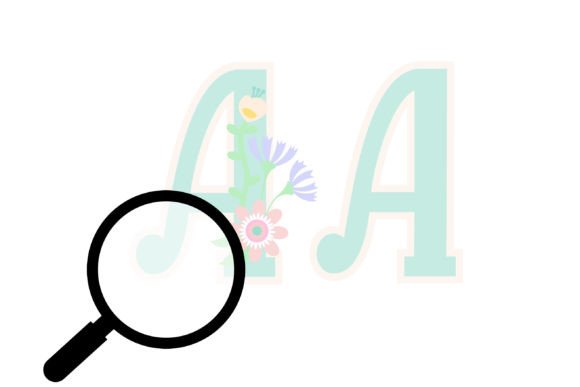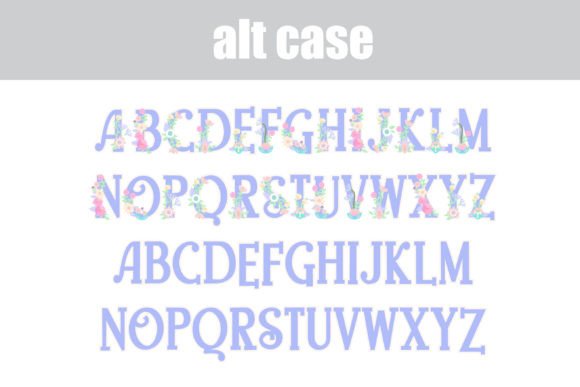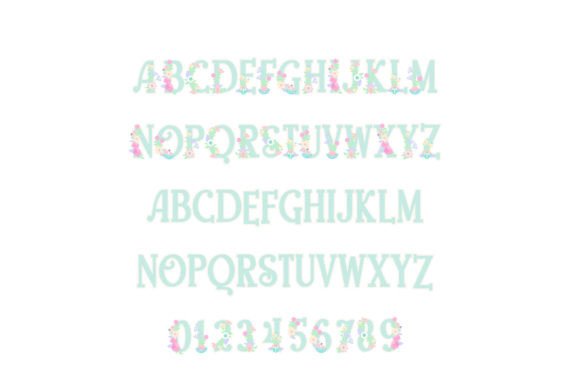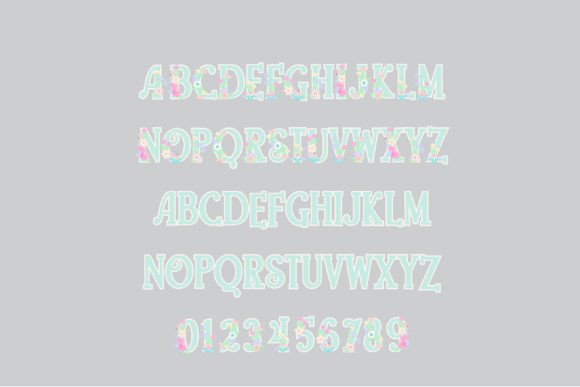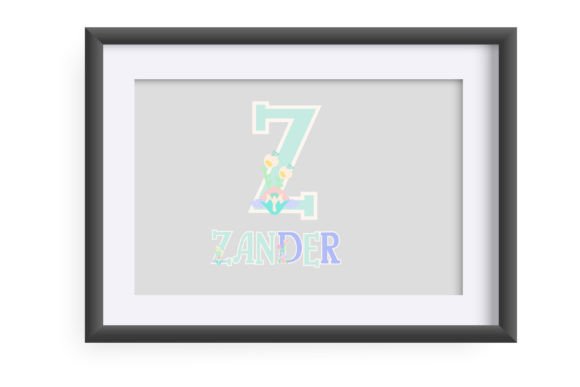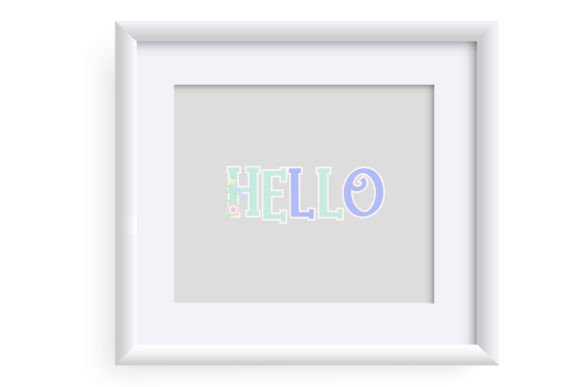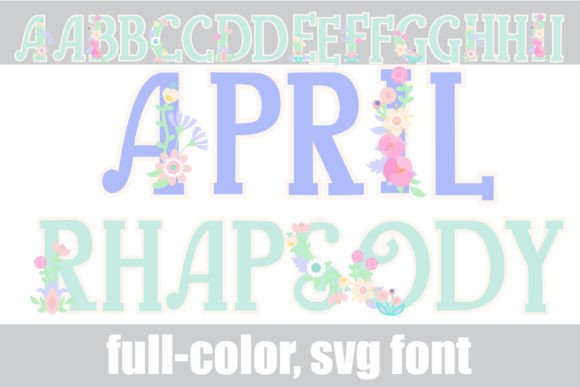
Introducing April Rhapsody Font: Elevate Your Designs with Vibrant Florals
Are you tired of using the same old fonts in your designs? Look no further than the April Rhapsody Font, a stunning full-color font that combines beautiful florals with a classic serif font. This unique font is perfect for designers and crafters looking to add a touch of personality to their work.
What is April Rhapsody Font?
April Rhapsody Font is a one-of-a-kind font that features gorgeous florals on a serif font, creating a beautiful and eye-catching effect. But that’s not all – this font also comes with an alternative case that includes additional colors, which can be accessed through your system or Silhouette’s glyph map.
The Benefits of Full-Color SVG Fonts
Full-color SVG fonts like April Rhapsody Font offer a world of creative possibilities. With a full range of colors and styles to choose from, you can create anything from simple text logos to complex illustrations. These fonts are perfect for designers and crafters who want to add a personal touch to their work.
Why Choose April Rhapsody Font?
So, why choose April Rhapsody Font over other fonts? Here are just a few reasons:
- Unique and eye-catching design: The beautiful florals and serif font combination make April Rhapsody Font truly stand out.
- Flexibility: With a full range of colors and styles to choose from, you can use April Rhapsody Font in a variety of design projects.
Tips for Using April Rhapsody Font
Here are a few tips for getting the most out of April Rhapsody Font:
- Experiment with different colors and styles: Don’t be afraid to try out different colors and styles to find the perfect look for your design.
- Use it for special projects: April Rhapsody Font is perfect for special projects like invitations, greeting cards, and other designs where you want to make a statement.
- Combine it with other fonts: Try combining April Rhapsody Font with other fonts to create a unique and interesting effect.
April Rhapsody Font is a game-changer for designers and crafters looking to add a touch of personality to their work. With its beautiful florals, classic serif font, and full range of colors and styles, this font is perfect for a variety of design projects. Whether you’re creating simple text logos or complex illustrations, April Rhapsody Font is sure to impress.